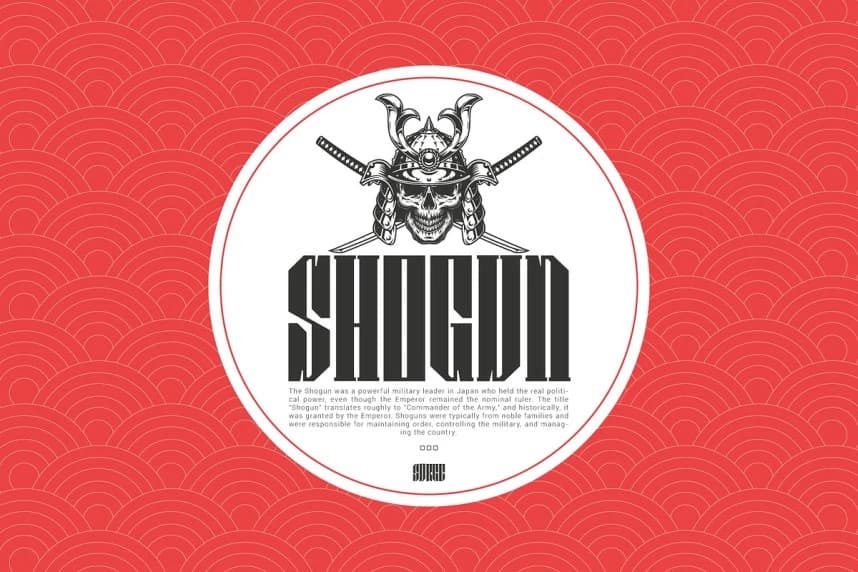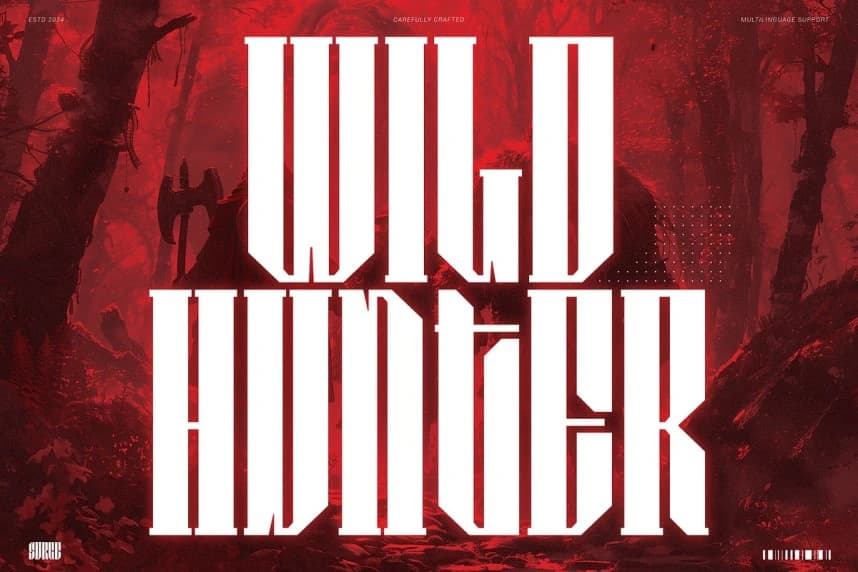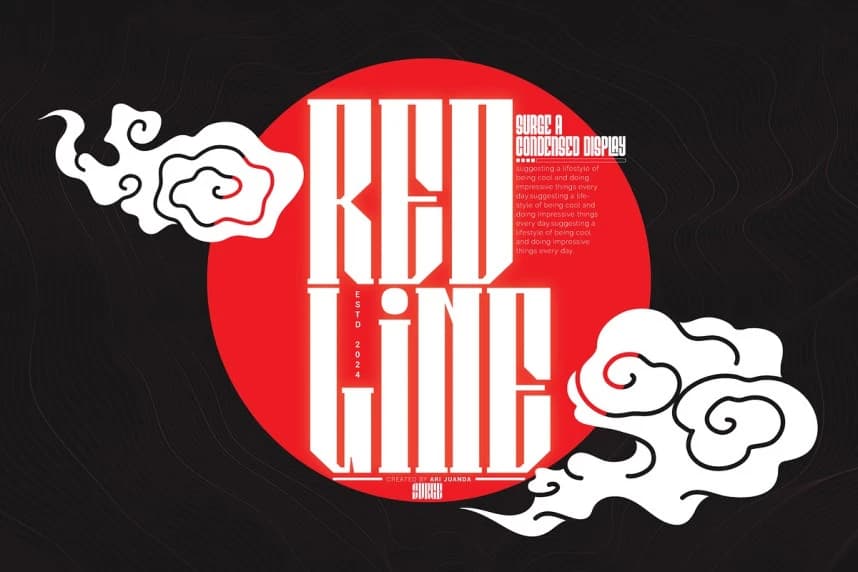
Surge Font
Surge Font, is a slab serif condensed font, with a bold style and combined with a modern futuristic touch that will give a strong and sharp look, but with a slightly vintage feel, This font is ideal for Sports, billboards, esports, websites, titles, posters, brands and logos.